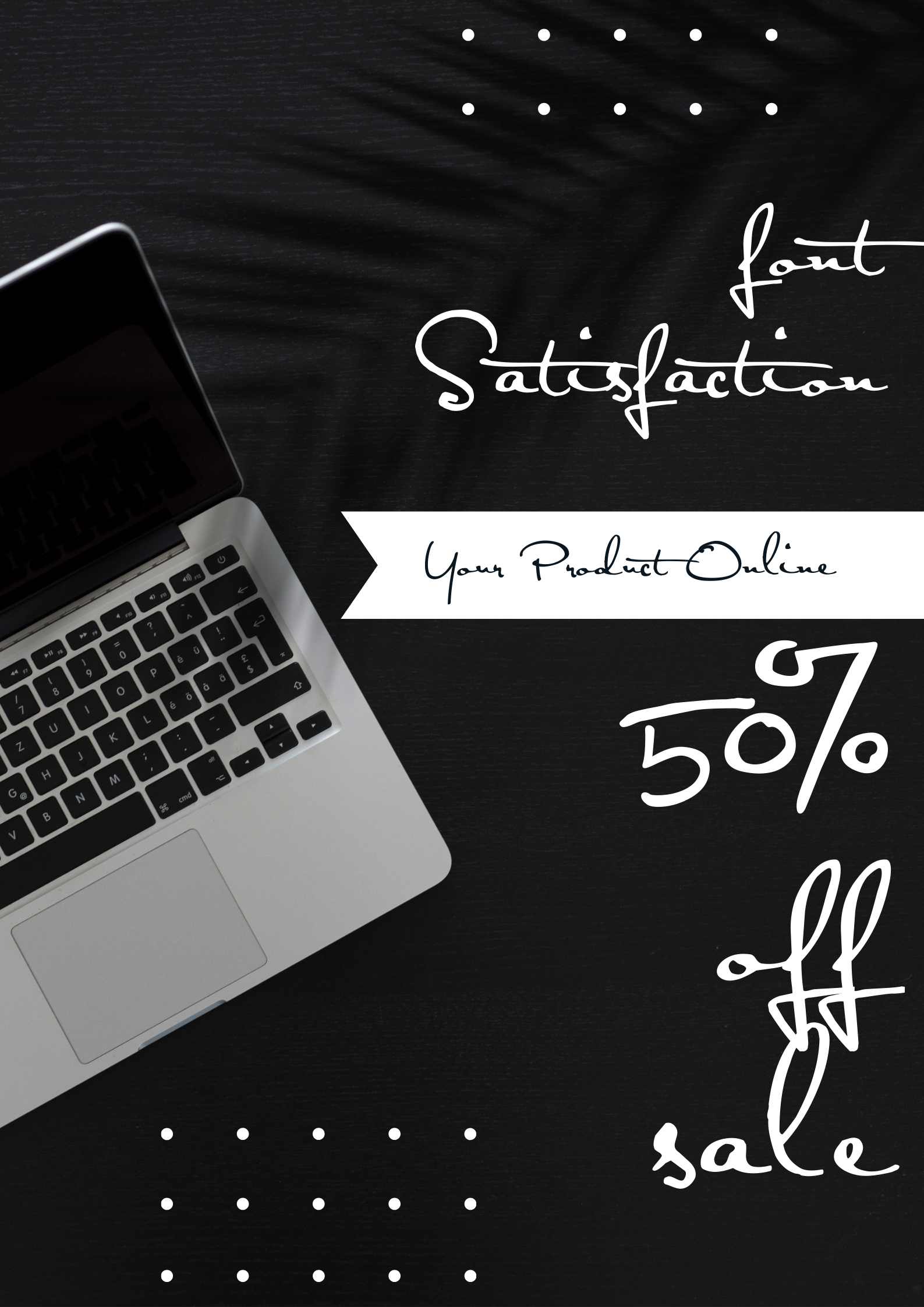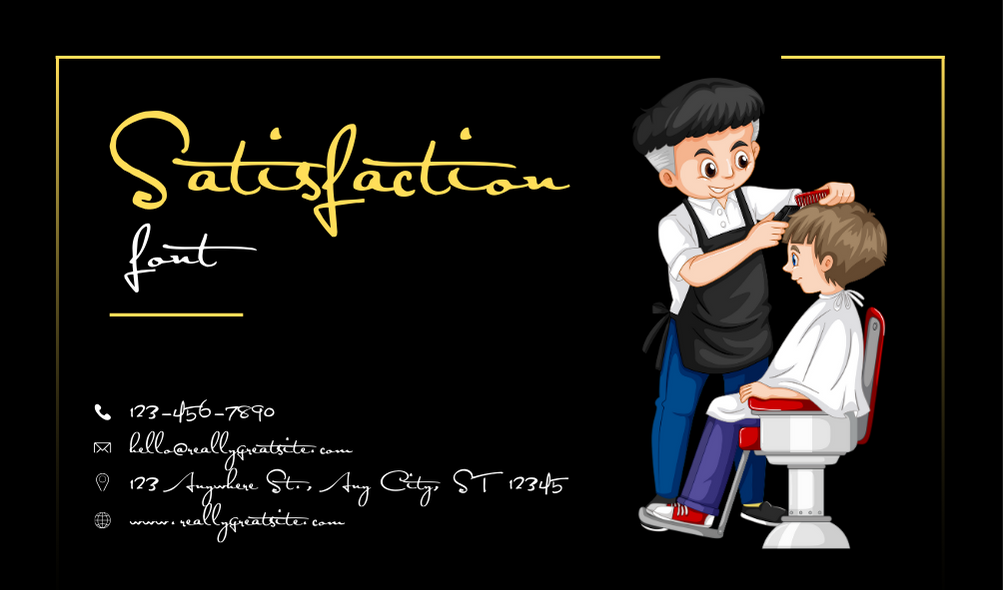
The Satisfaction font is a good choice for designs that are meant to be fun and playful. It is available in the Regular subfamily, which has a clean and consistent look.